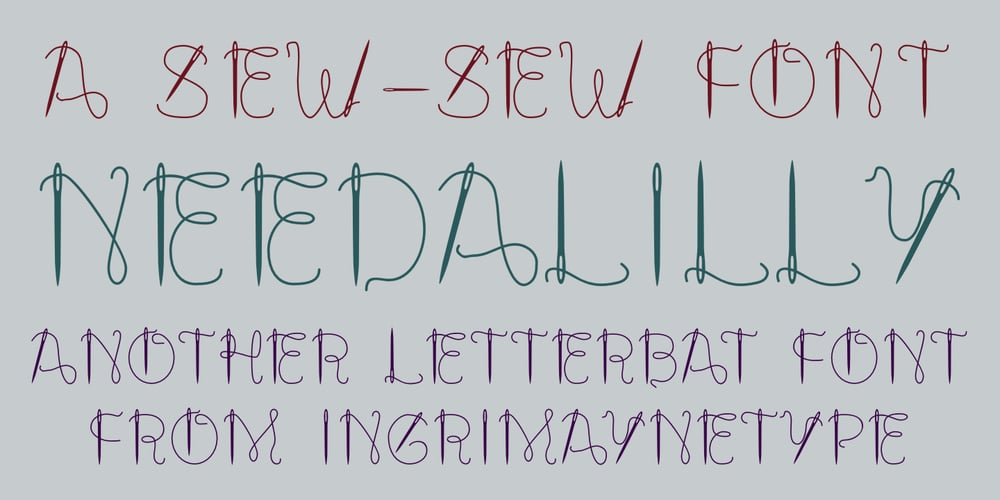
NeedALilly Font Family was designed by Robert Schenk and published by Ingrimayne Type. NeedALilly contains 1 styles and family package options. In NeedALilly the characters are composed of threaded needles. It is caps only and the lower-case letters repeat the upper-case glyphs.